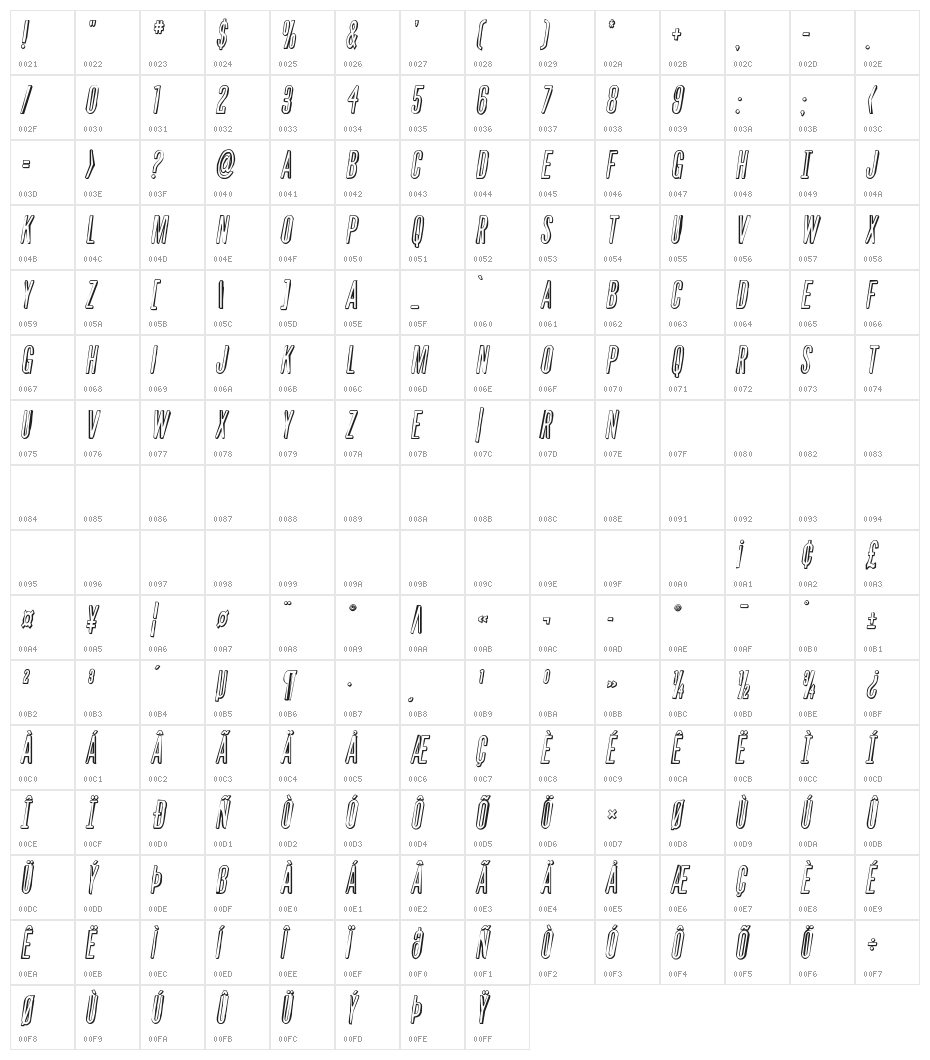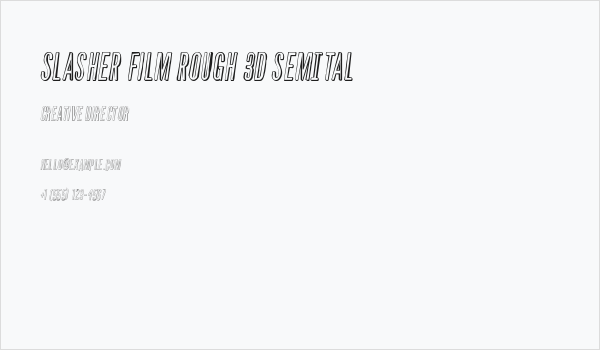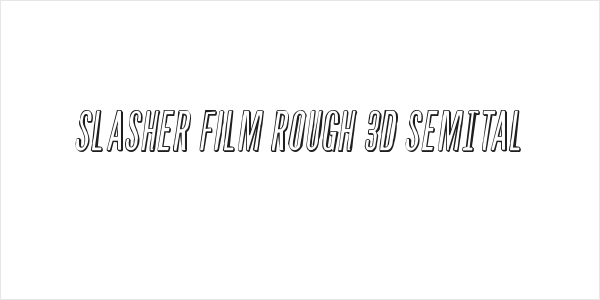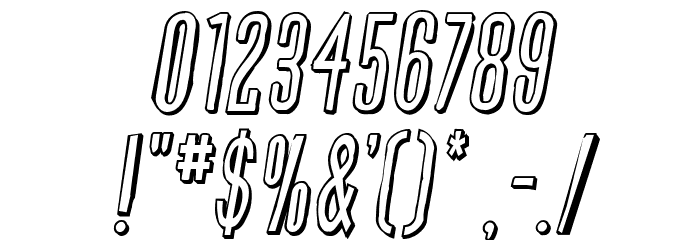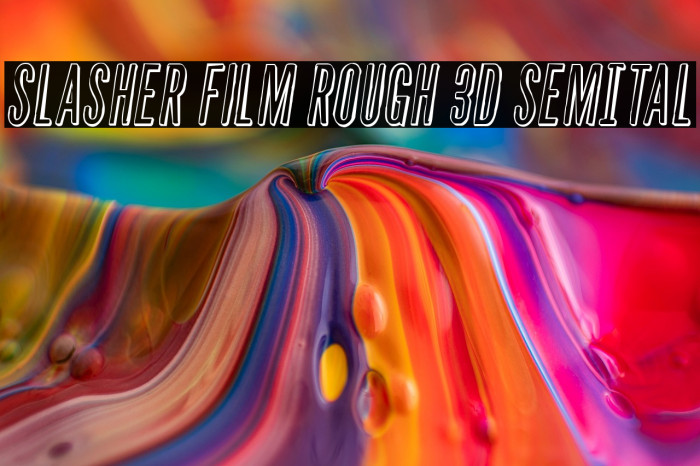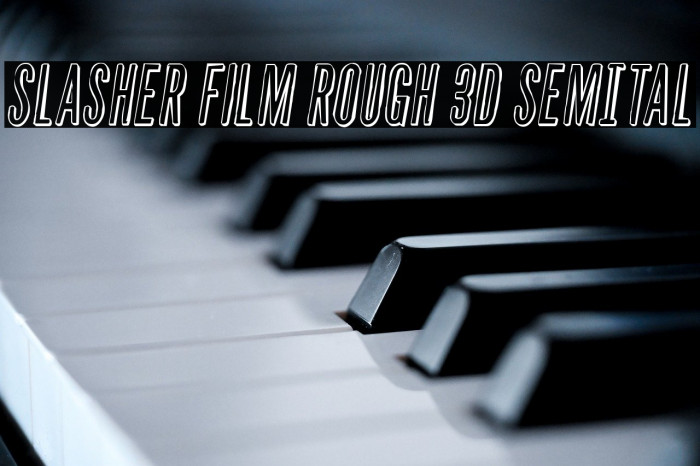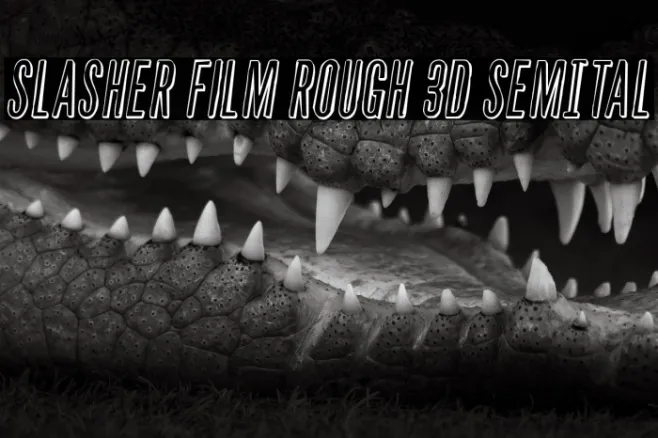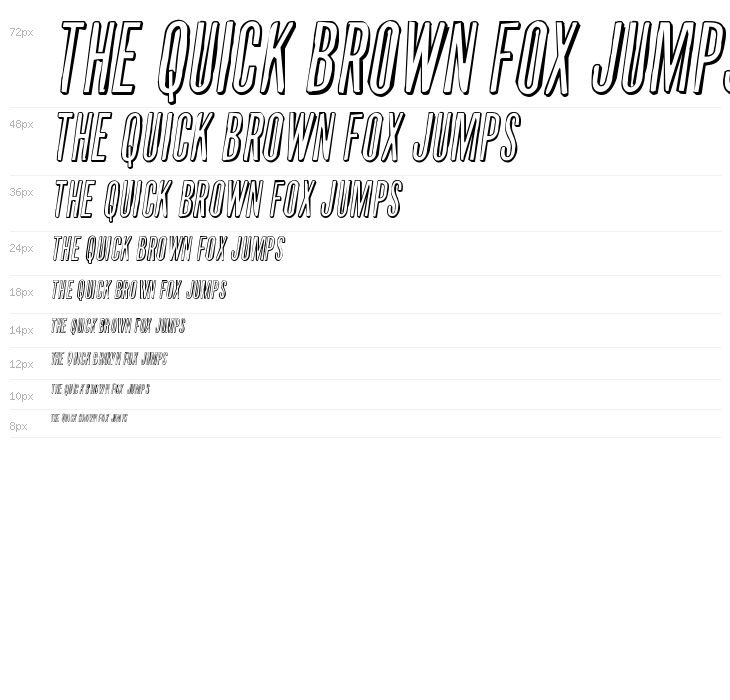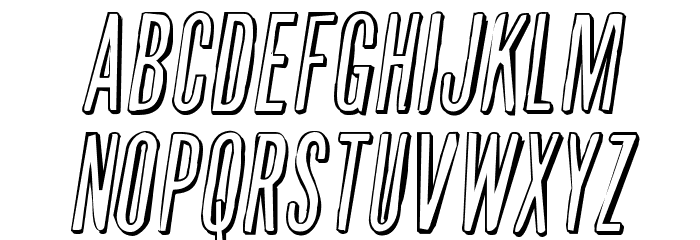
Slasher Film Rough 3D SemItal Font
Slasher Film Rough 3D SemItal Description
This font features a bold, three-dimensional appearance with a rough, semi-italic style. The uppercase letters are prominently displayed with a slight slant, giving them a dynamic and edgy look. The outlines are thick, creating a shadow effect that enhances the 3D illusion. The numbers and special characters maintain the same stylistic elements, ensuring consistency across all glyphs. This font is designed to stand out, making it ideal for attention-grabbing headlines and titles. Its unique style combines elements of both modern and retro aesthetics, making it versatile for various design projects.
| Overall Style | Modern, Retro |
| Proposed Projects | Ideal for movie posters, video game titles, branding, and any project requiring a bold, eye-catching typeface. |